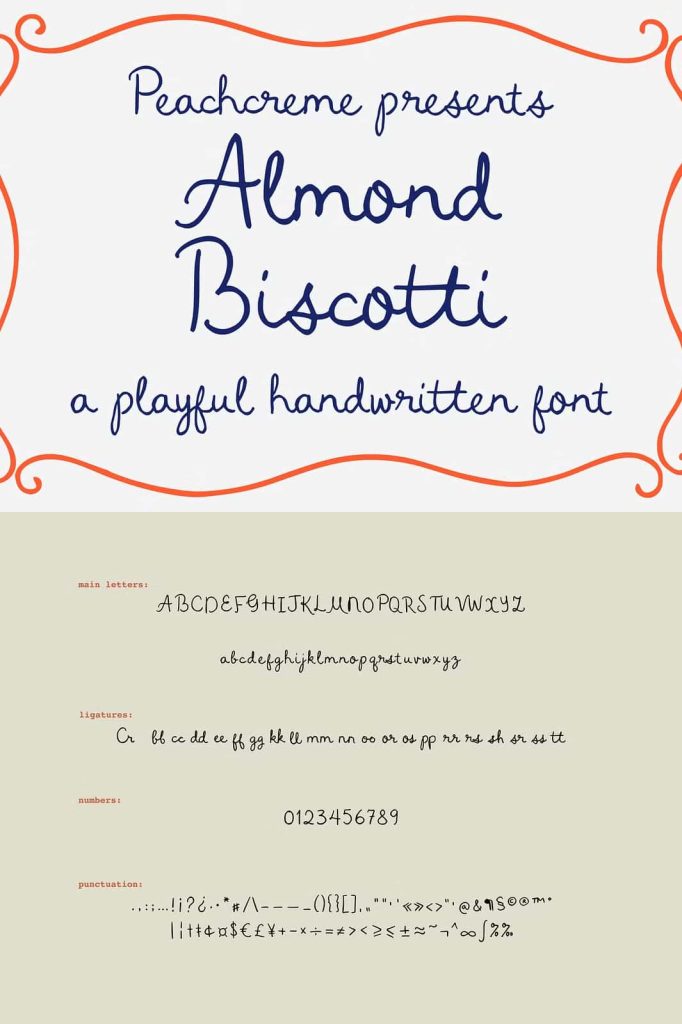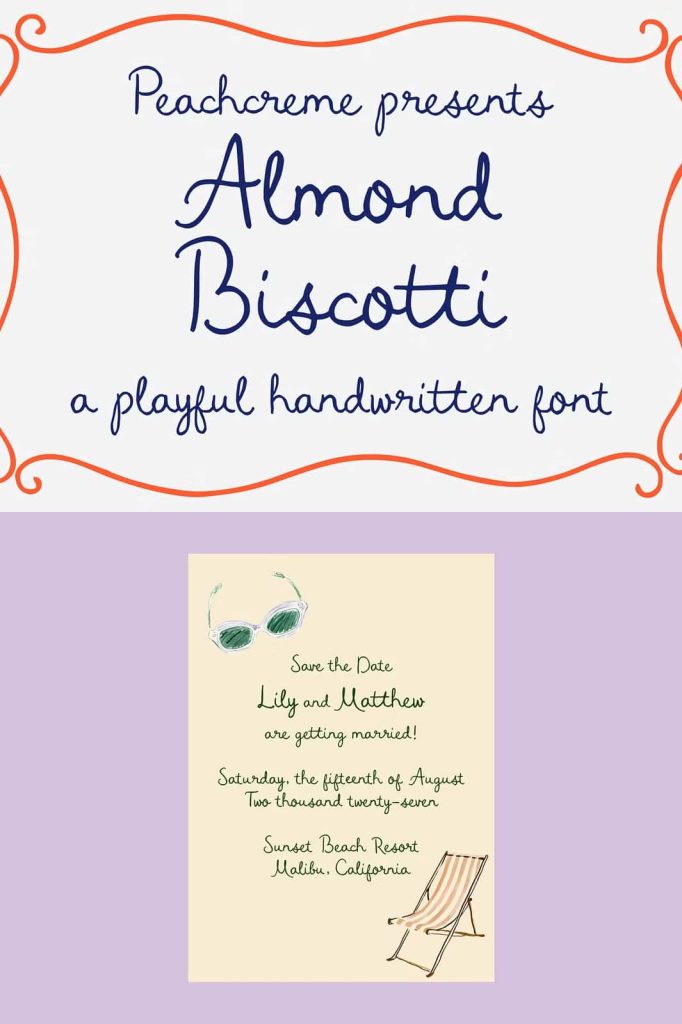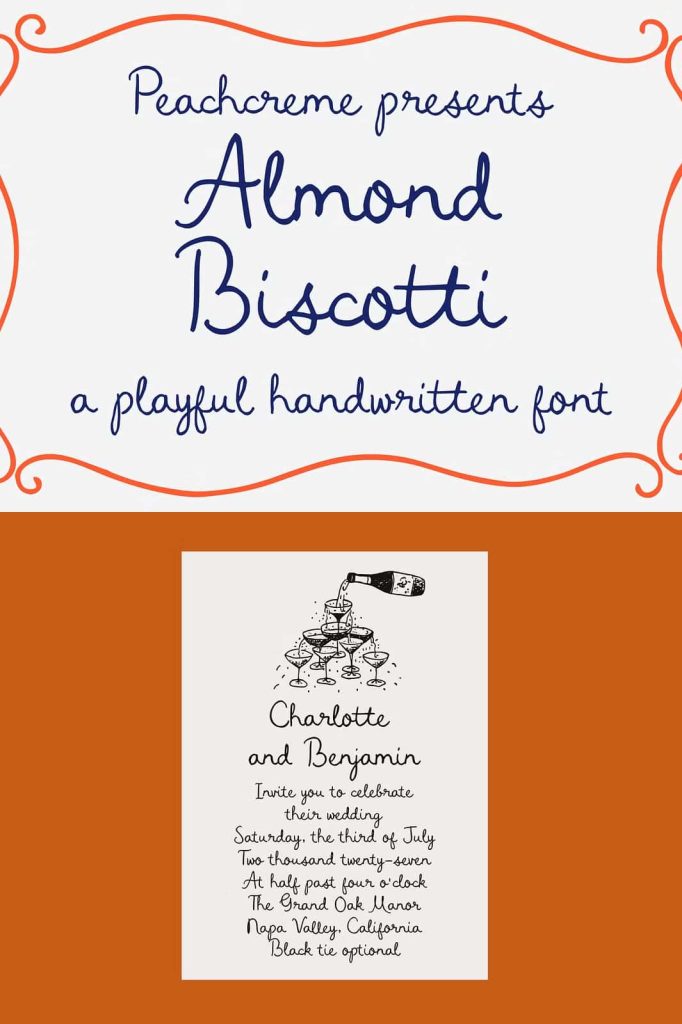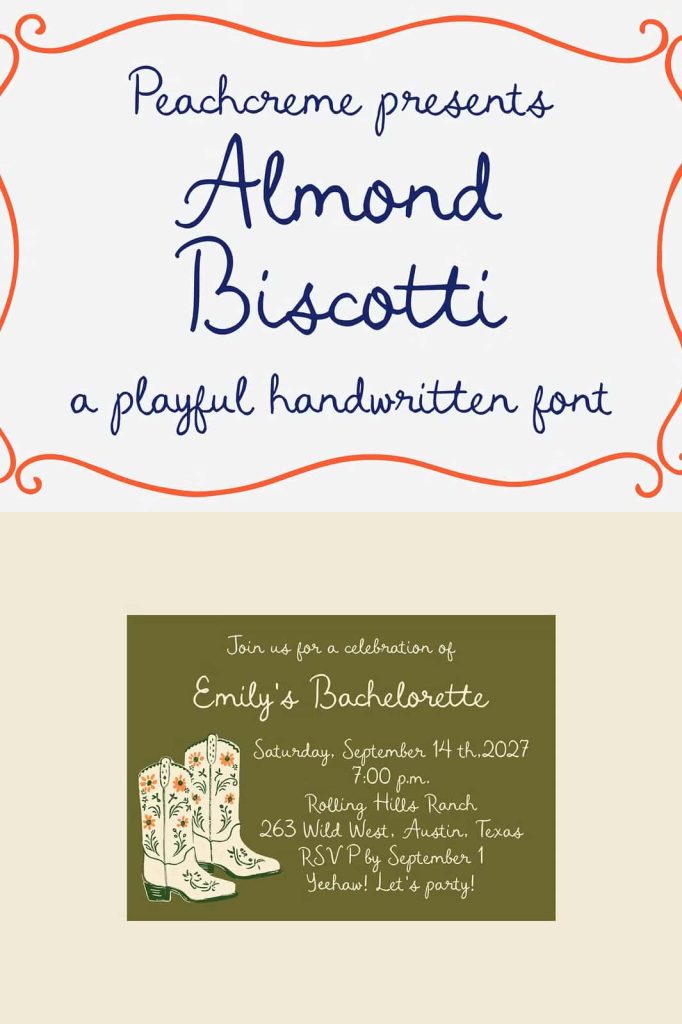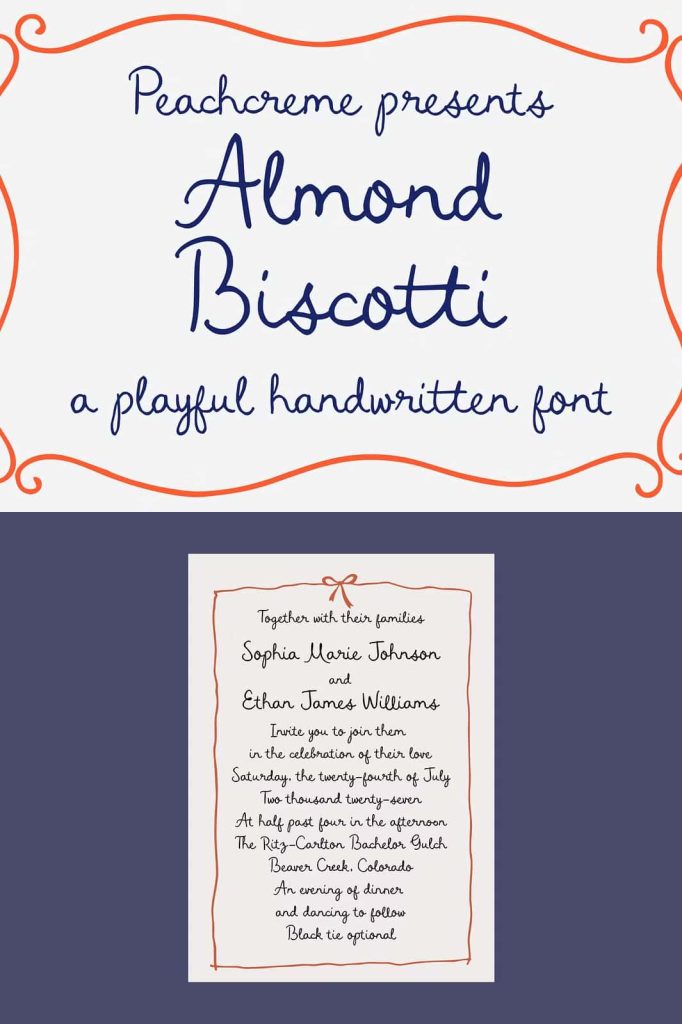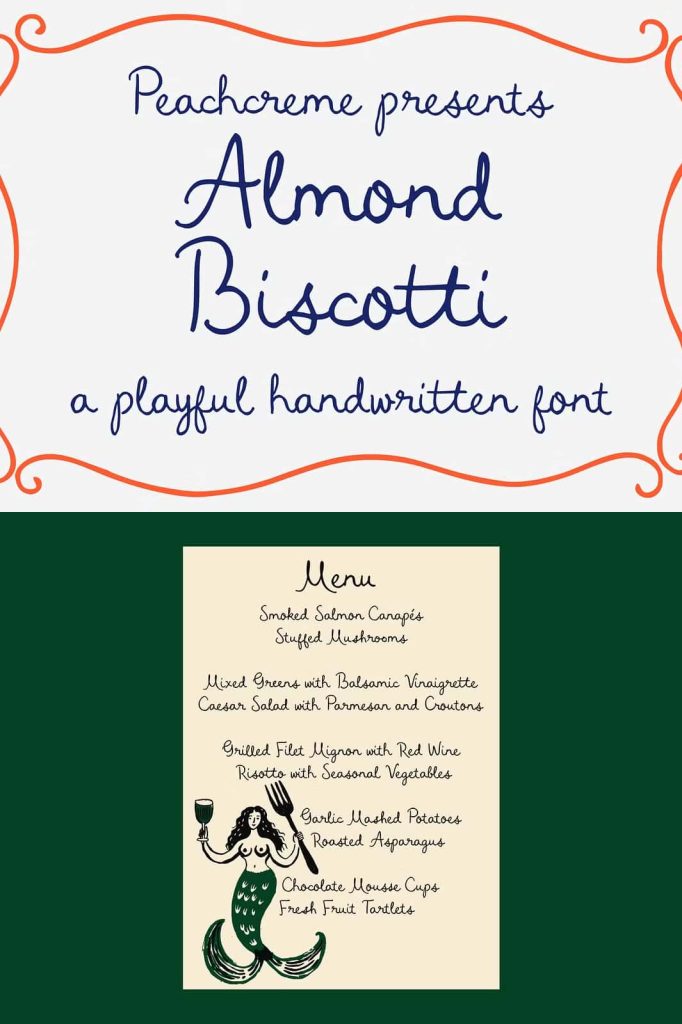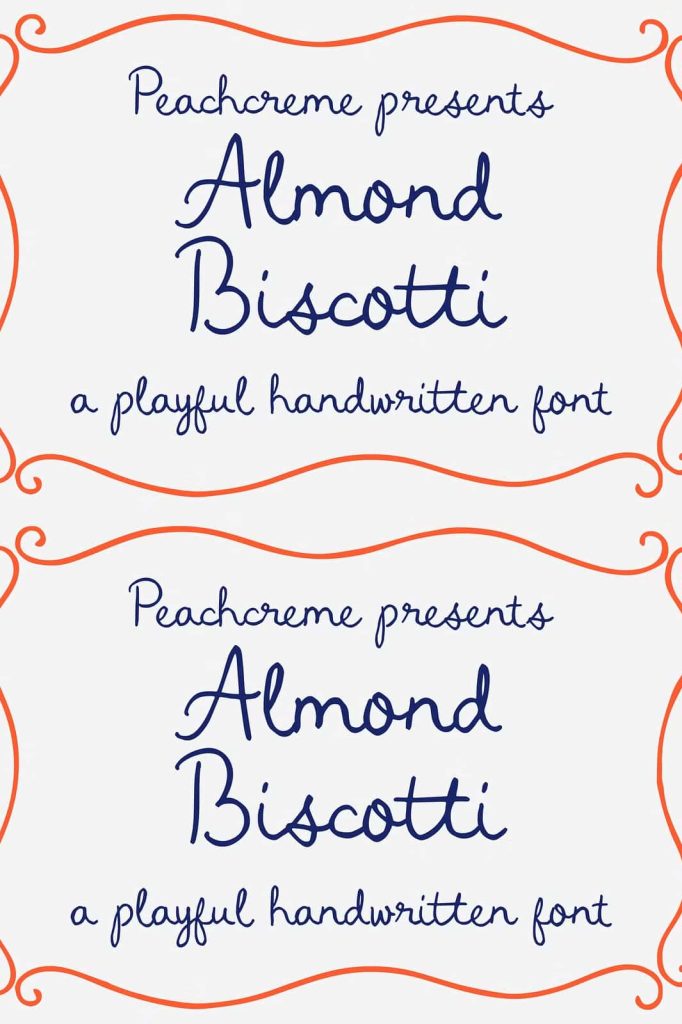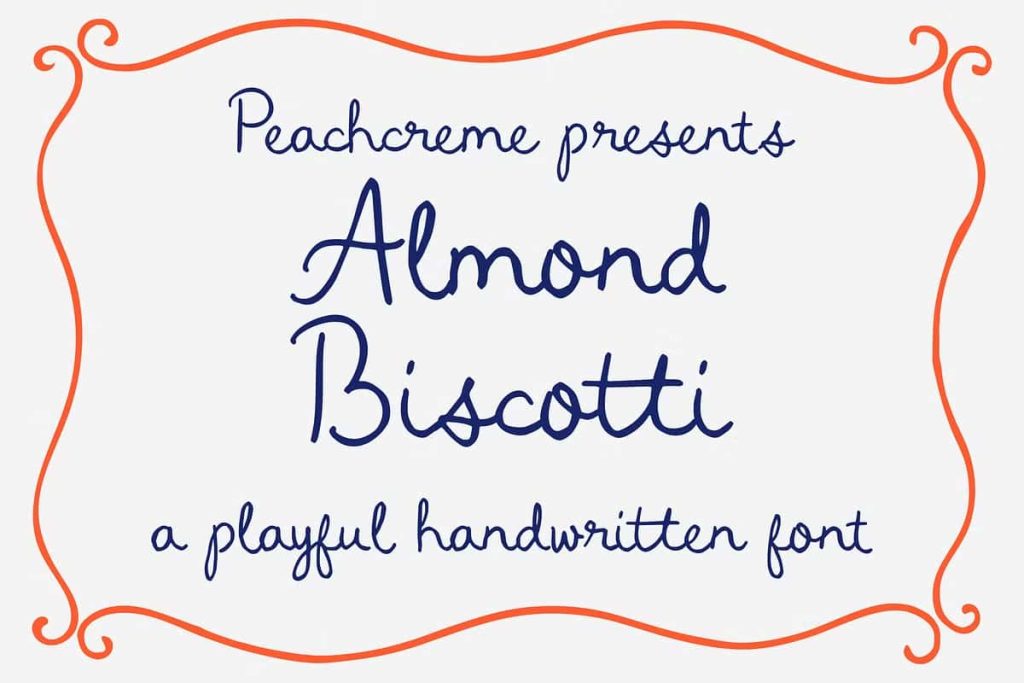
Add a touch of whimsy with Almond Biscotti. This hand-drawn font features irregular, charming letter shapes, perfect for invitations, cards, and creative projects.